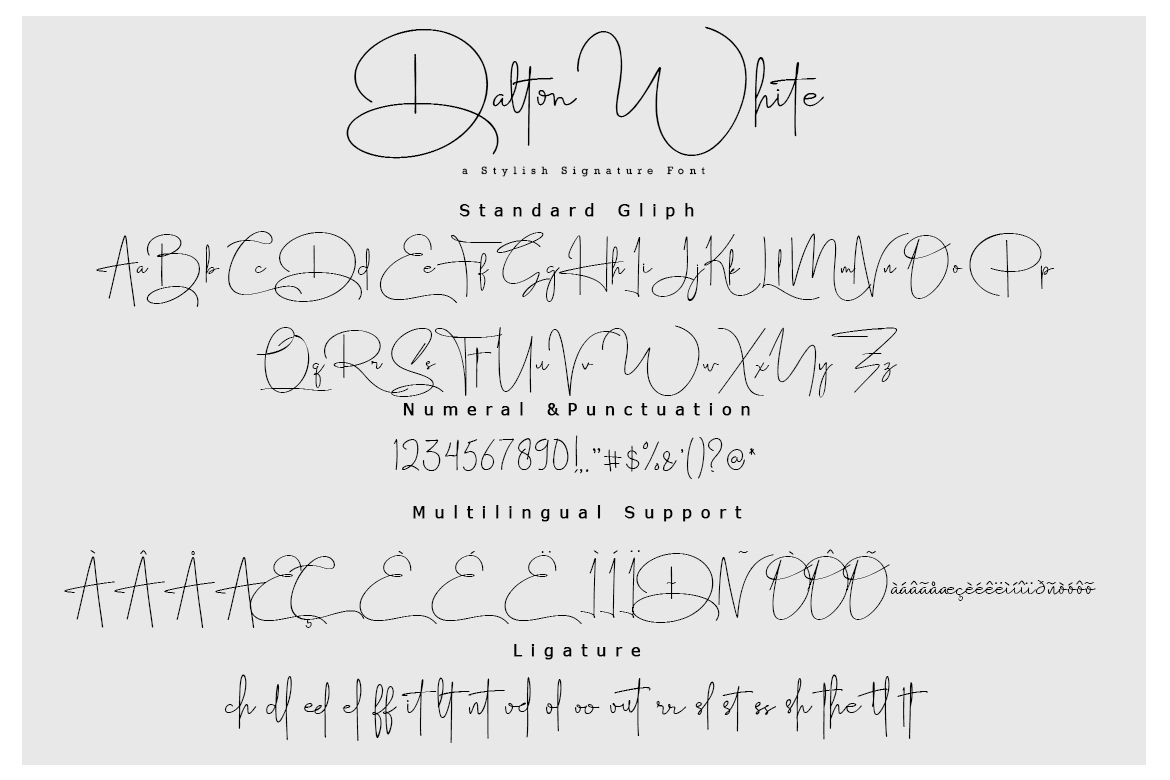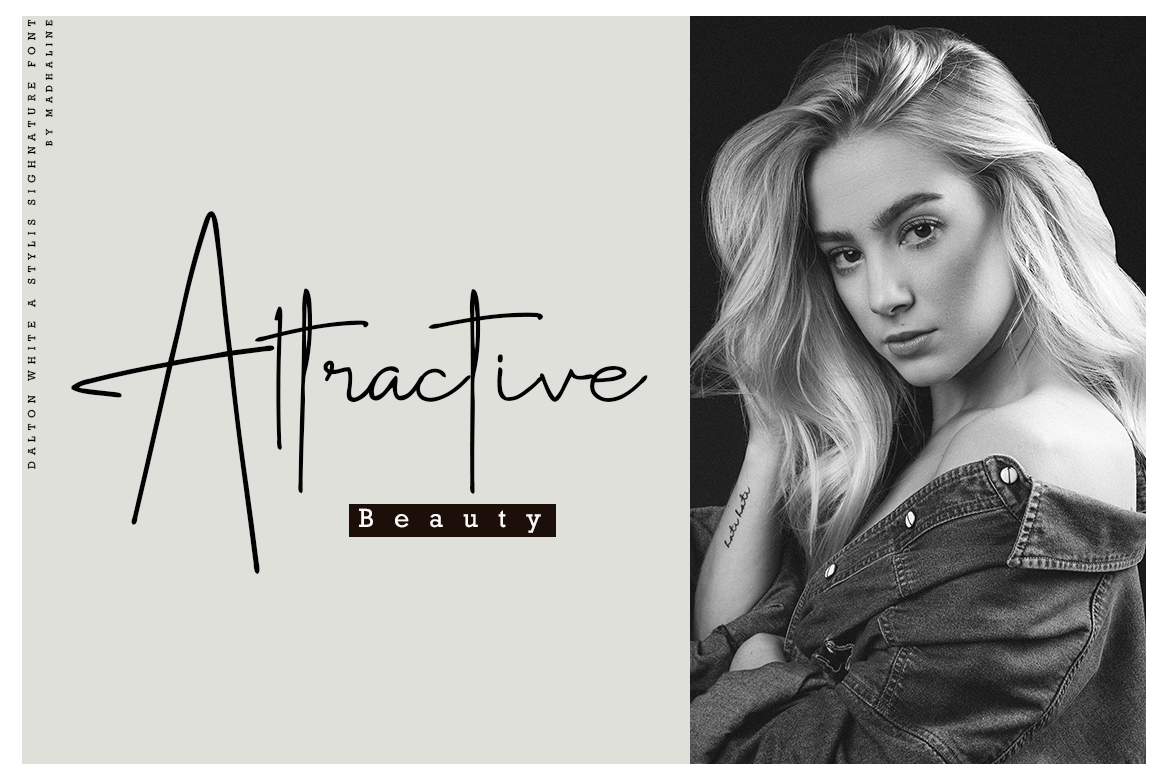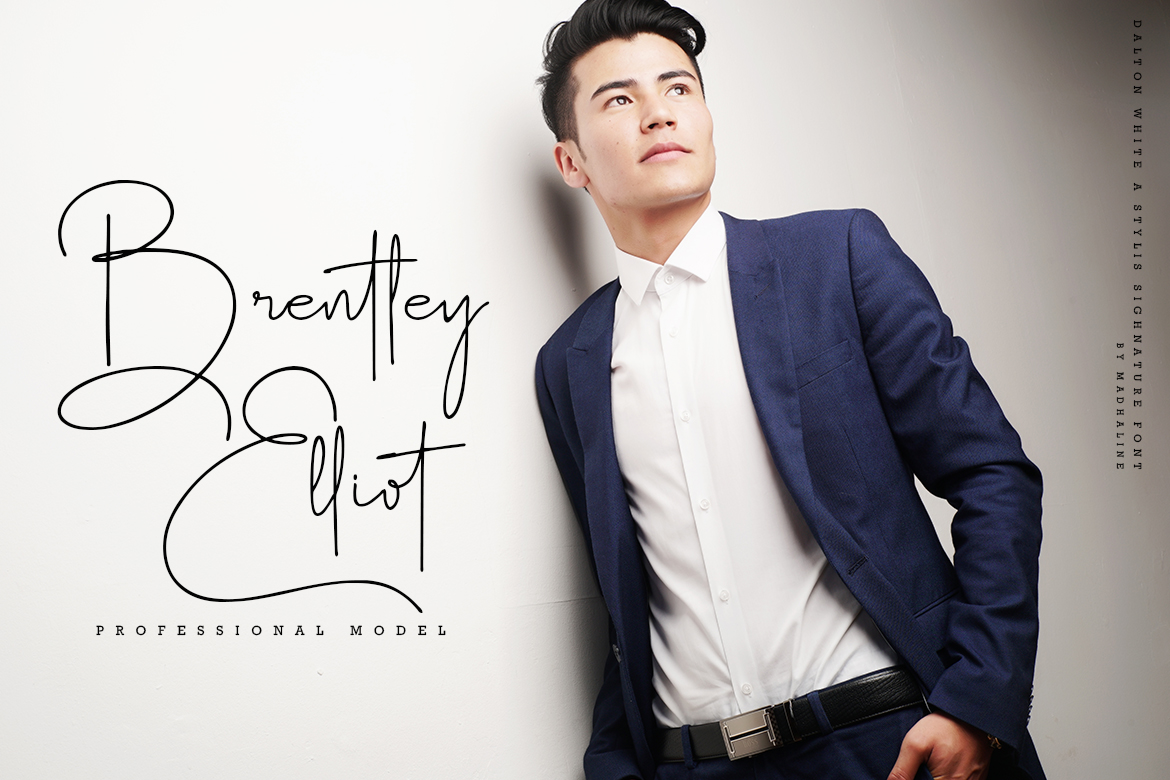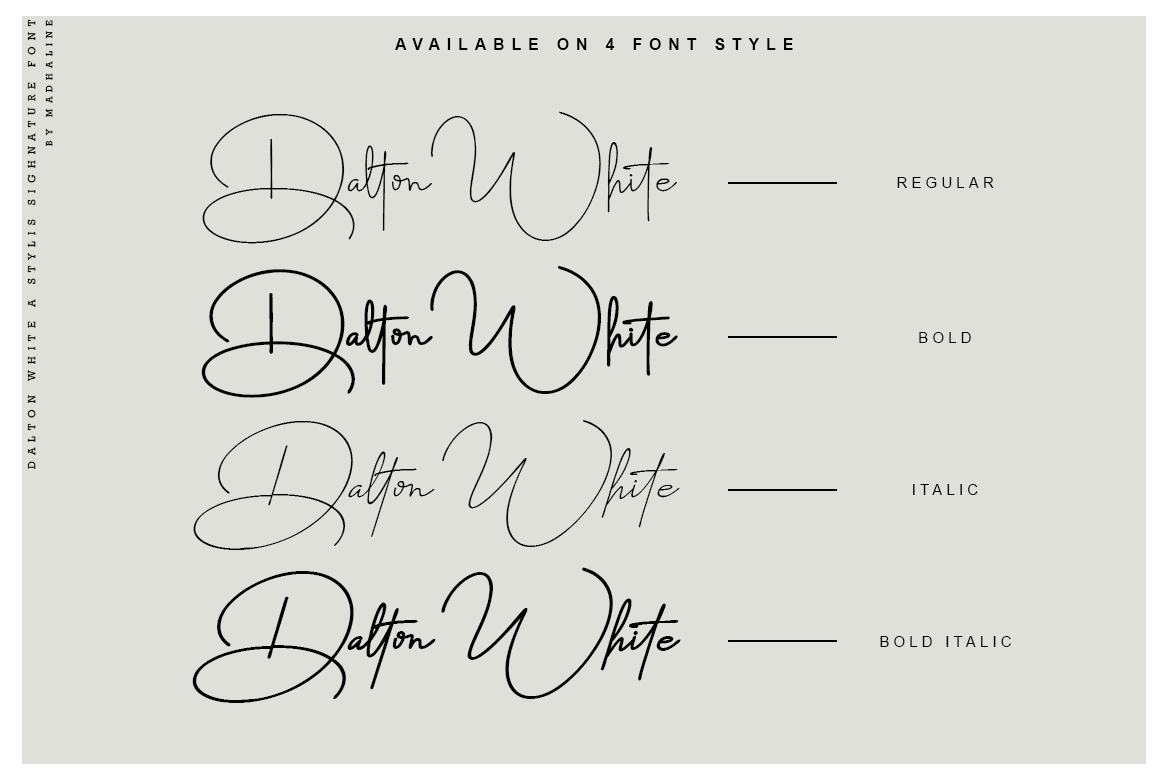
Dalton White Font
Dalton White Handwritten Font
This is a modern and fresh script font. It looks elegant, natural and stylish and it will most certainly elevate a wide range of creations. This font is PUA encoded which means you can access all glyphs and swashes with ease!